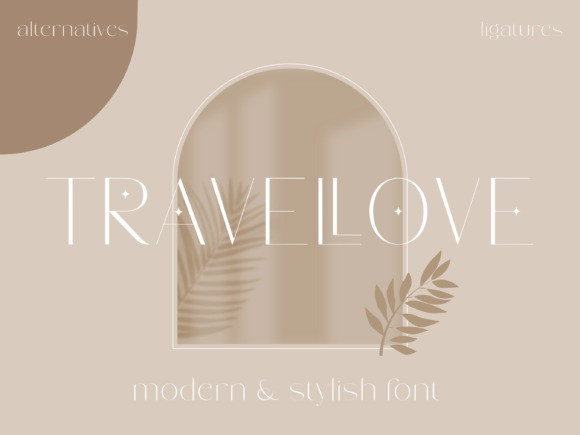
Travel Love Font
Travel Love is a modern sans serif font that can add an exquisite vibe to each of your creations. It looks impeccable on titles, covers, or anything bold and bright. This font is PUA encoded, which means you can access all of the glyphs and swashes with ease!